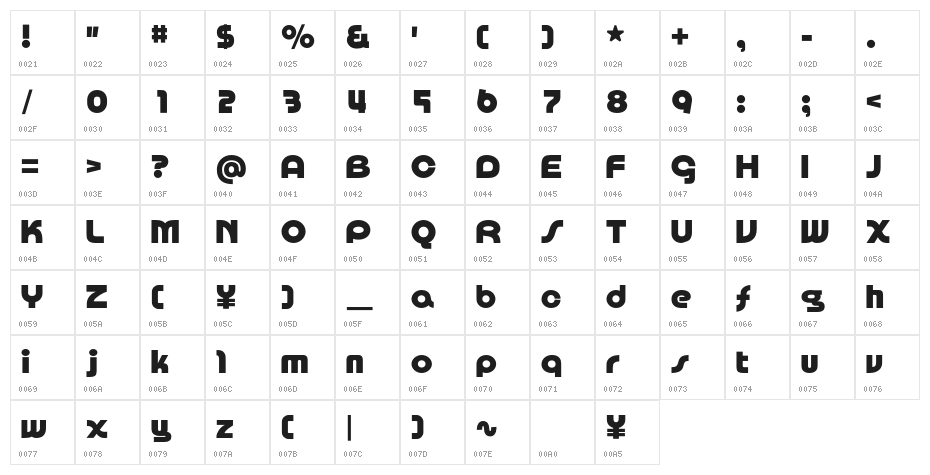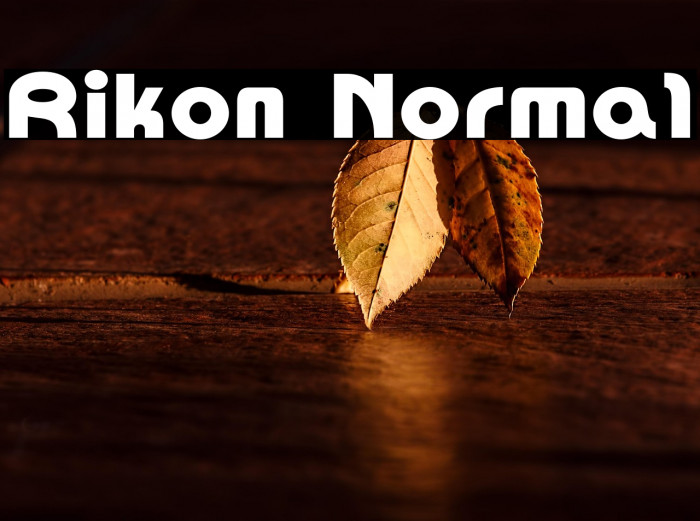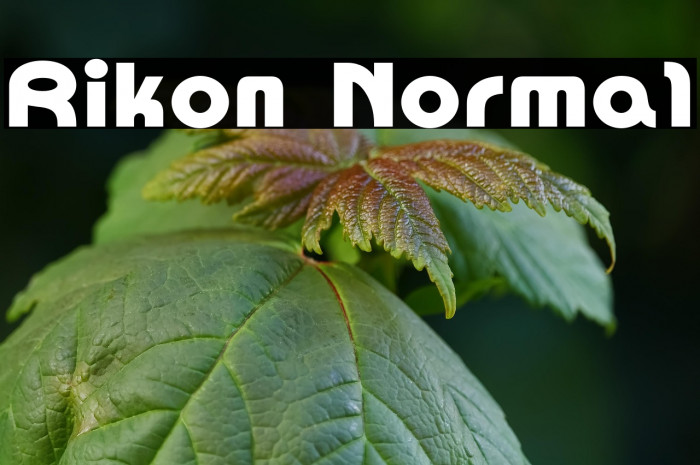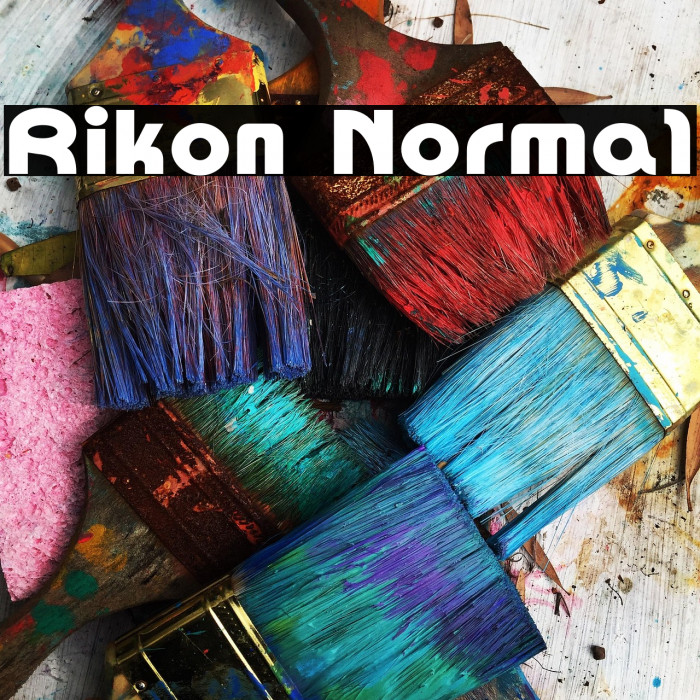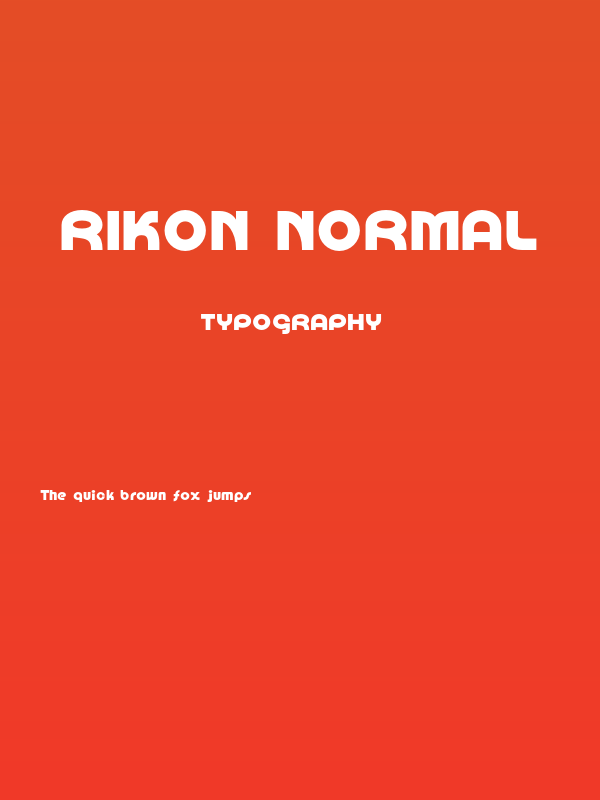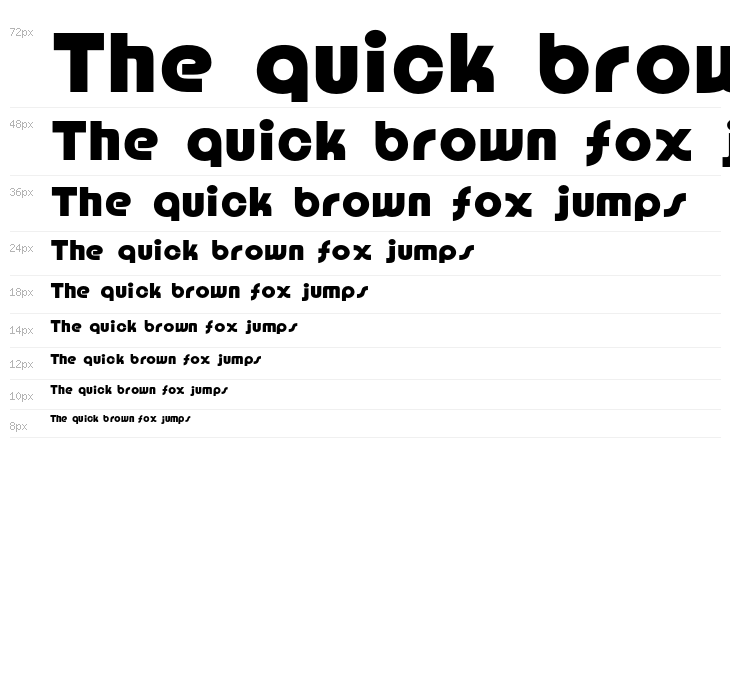
Rikon Normal Font
Rikon Normal Description
This font features a bold and geometric design with a strong presence. The characters are constructed with thick, uniform strokes, giving it a robust and modern appearance. The uppercase and lowercase letters maintain a consistent style, with rounded edges and a slightly condensed form. The numerals and special characters follow the same design principles, ensuring a cohesive look across all elements. The font's boldness and unique style make it stand out, suitable for projects that require a strong visual impact.